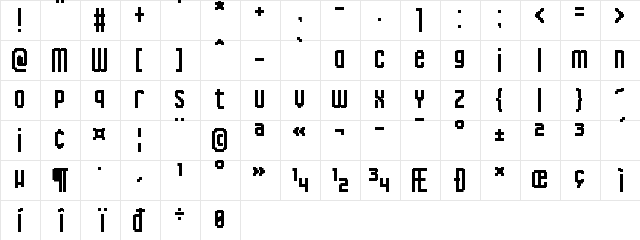
Inky Thin Pixels Regular
Designer: GameDevDan
Complete Inky Thin Pixels Regular glyph index. Displaying only characters natively supported by Inky Thin Pixels Regular font.
Design Context for Inky Thin Pixels
Inky Thin Pixels is rooted in pixel-grid construction, making it a natural fit for game UI, retro computing aesthetics, and digital nostalgia projects.
Pro Tip: Use Inky Thin Pixels at sizes that align with its pixel grid for the sharpest rendering - scaling to non-integer multiples can introduce unwanted blur.